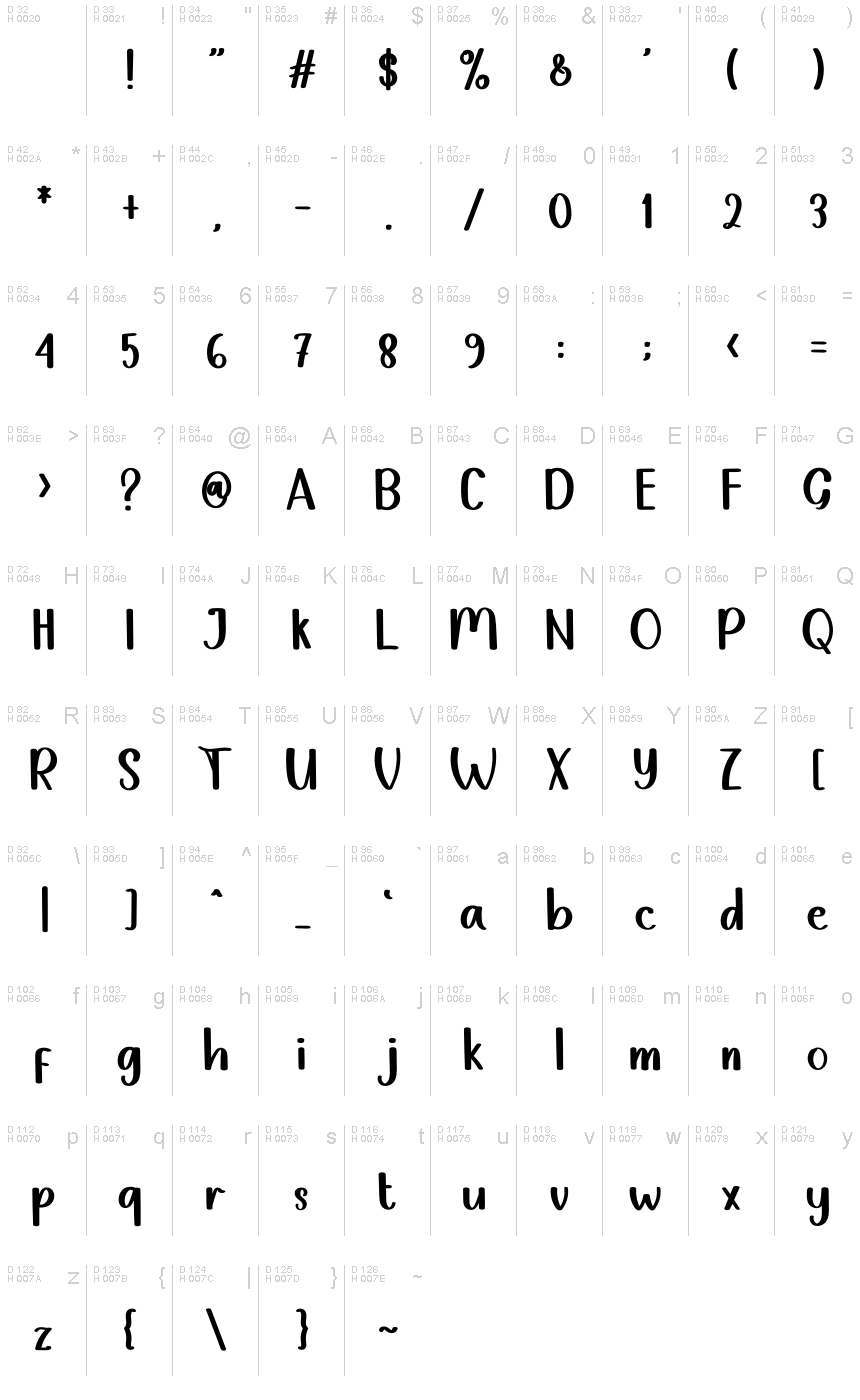
BARBERA
Barbera, a captivating handwritten font crafted by PiPi Creative, exudes a distinct charm and warmth. The organic, freeflowing strokes and subtle imperfections lend a delightful sense of authenticity, evoking a heartfelt, personal aesthetic. Barbera's whimsical yet elegant style seamlessly blends cursive and print elements, creating a visually captivating and emotive typography.
Barbera's versatility makes it a compelling choice for a wide range of design applications. Its playful and expressive nature lends itself well to branding, packaging, and editorial design, where it can add a touch of personality and individuality. Barbera's ability to convey a sense of handcrafted charm also makes it an excellent selection for wedding stationery, greeting cards, and other personal communications, infusing them with a genuine, heartfelt touch.